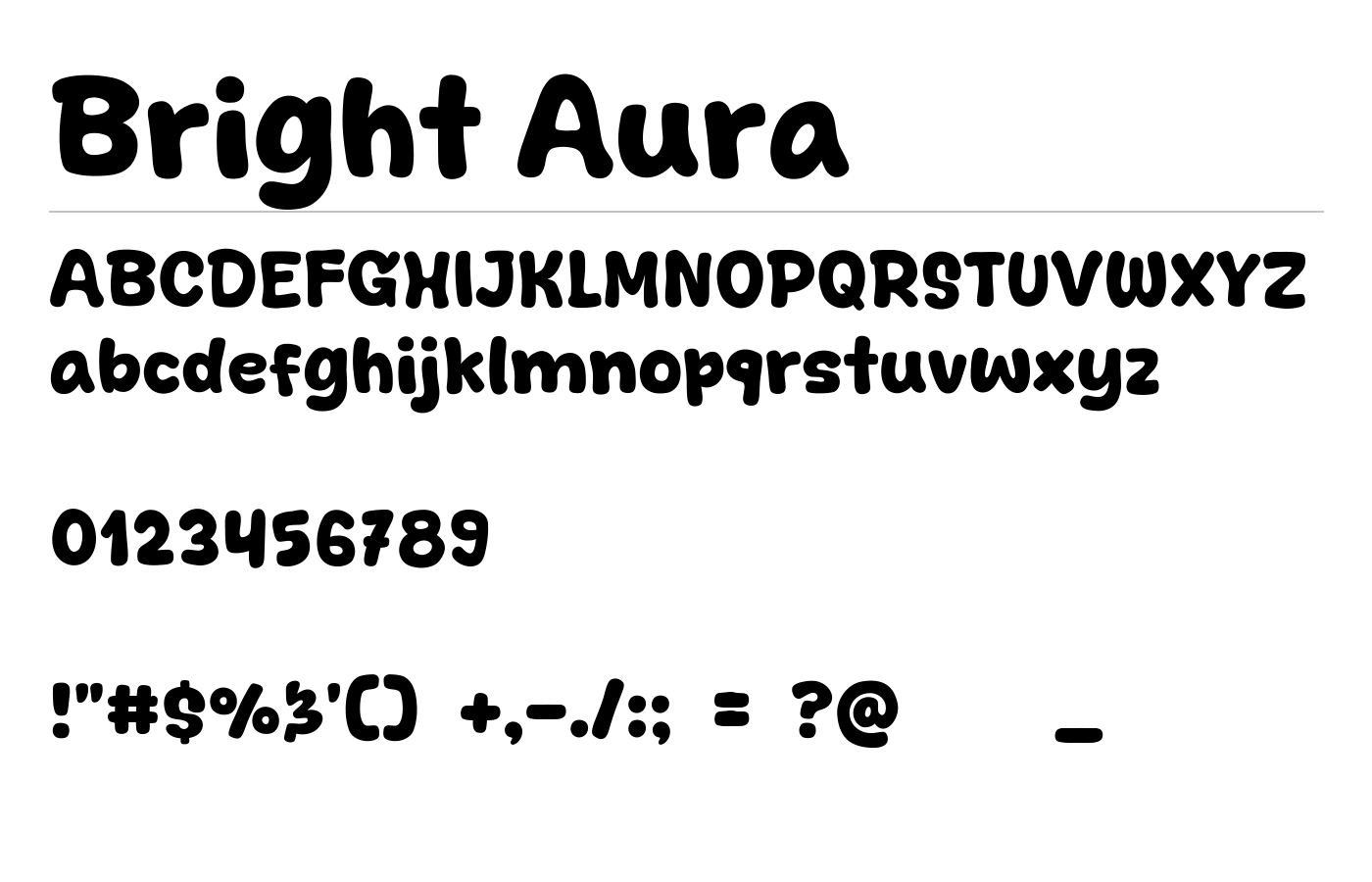
Bright Aura is a playful and bold sans serif font with rounded, chunky letterforms that create a friendly and approachable feel. Its smooth, consistent strokes and moderate x-height make it ideal for children’s books, casual branding, and fun headlines where a warm, informal tone is desired. This font works well for projects needing an inviting, cheerful style that grabs attention without feeling too serious.
Bright Aura Font
About Bright Aura Font